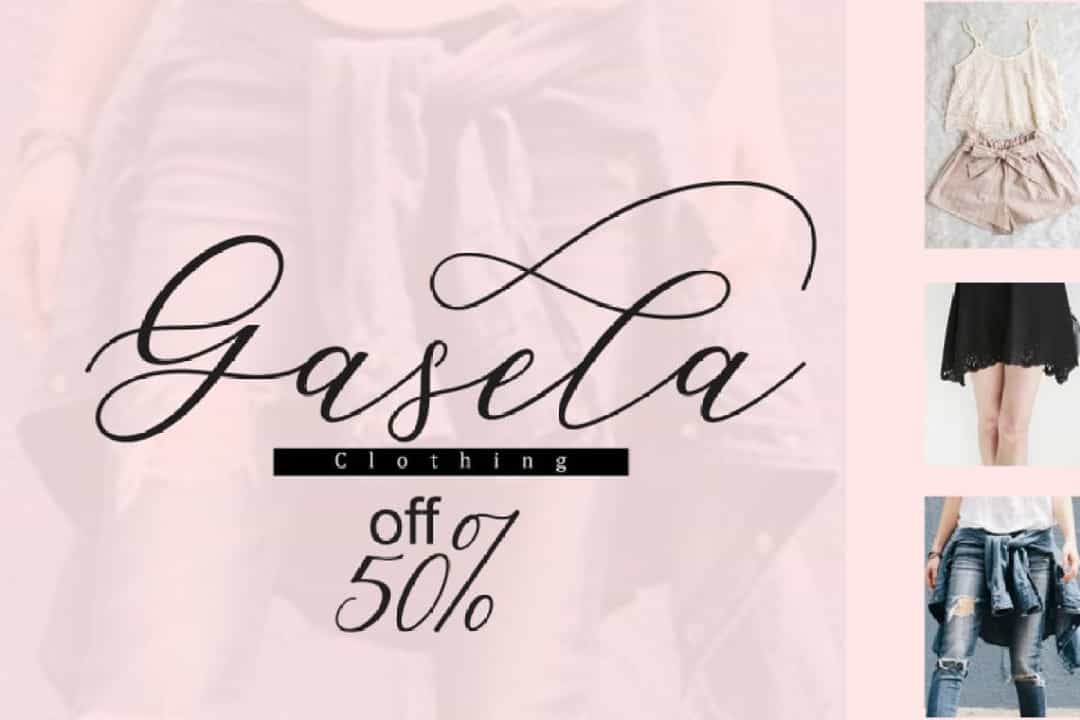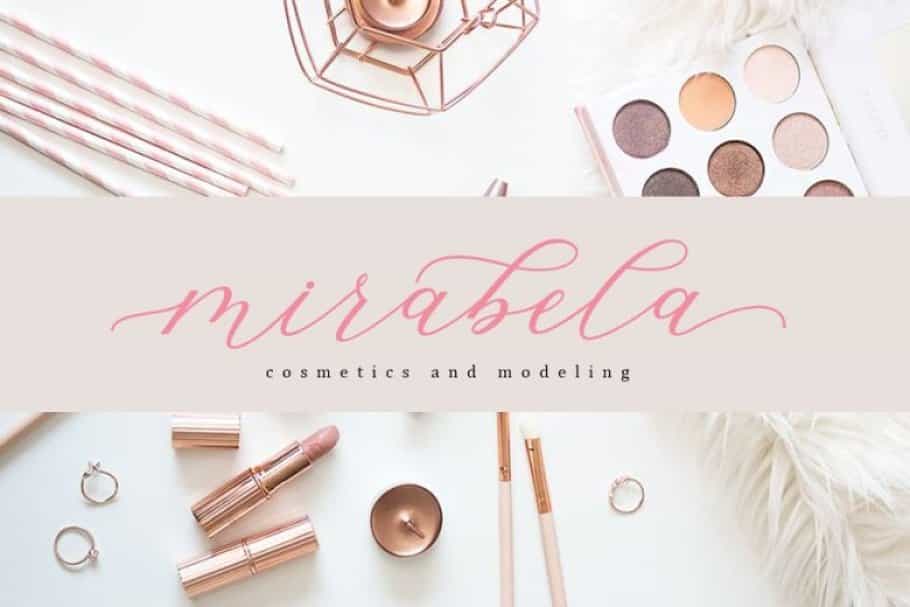
The new font, Hello Sarrah, is a modern and elegant calligraphy. Hello Sarrah is a modern feminine font, each letter has been designed carefully to make your text look beautiful. With modern script style this font will perfect for many different project ex: Photography, watermarking, quotes display on the blog header and posters; wedding photography , branding of a product or company logo to be used for fashion apparels as well as letters and invitations.